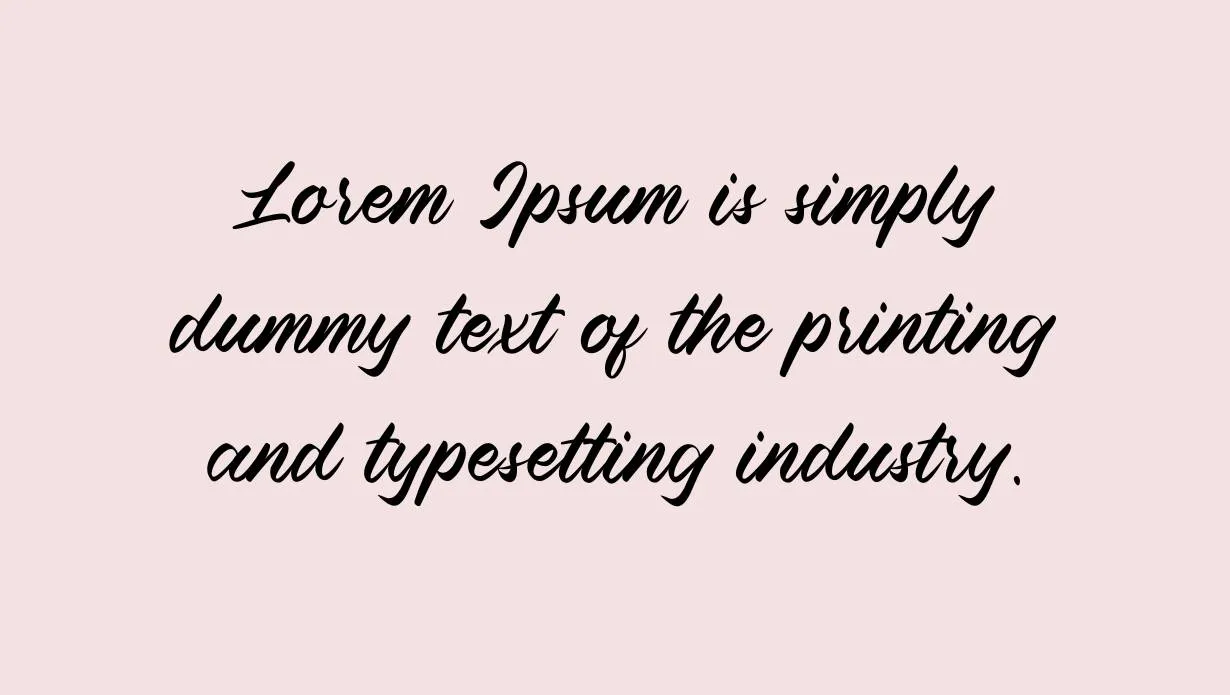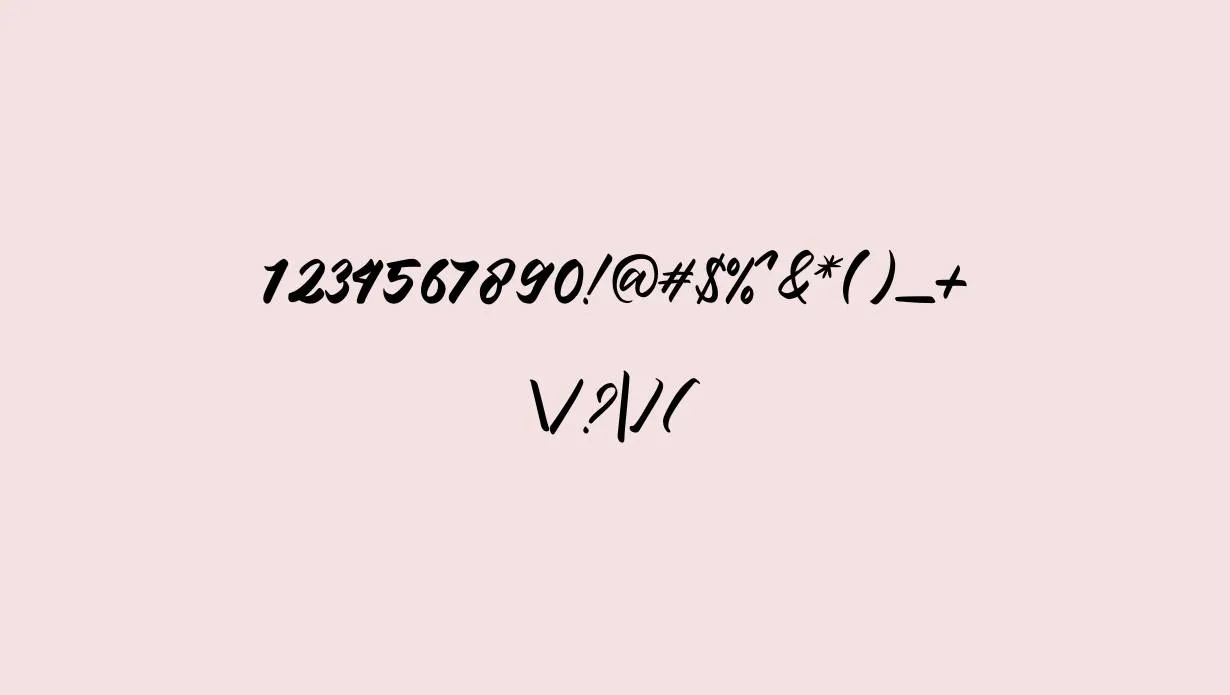
Presenting Blessed Friday Font, a handwritten font that was created by Ade Santani and released by Sancrea Studio in 2020.
Blessed Friday Font Family